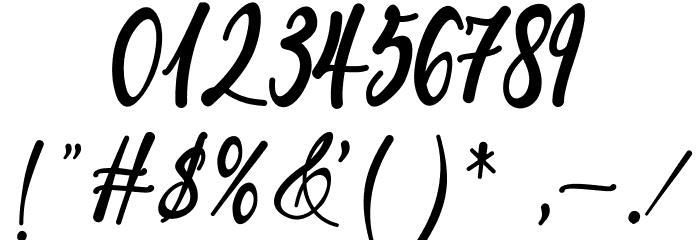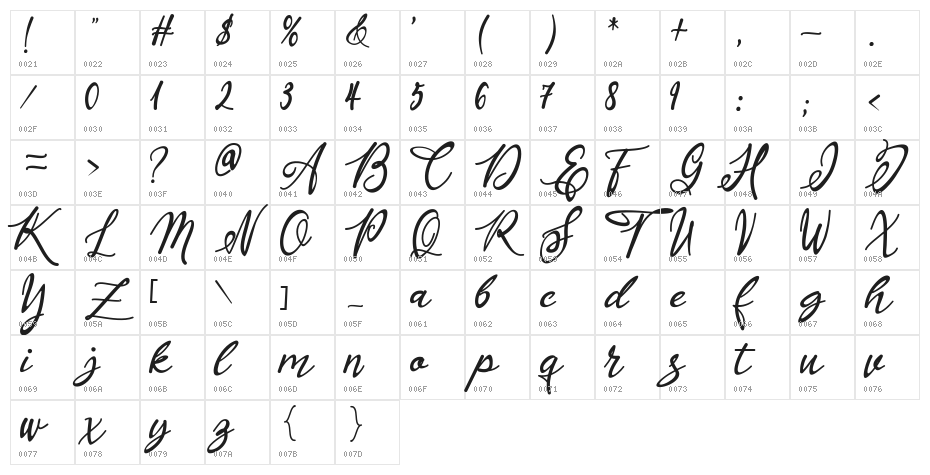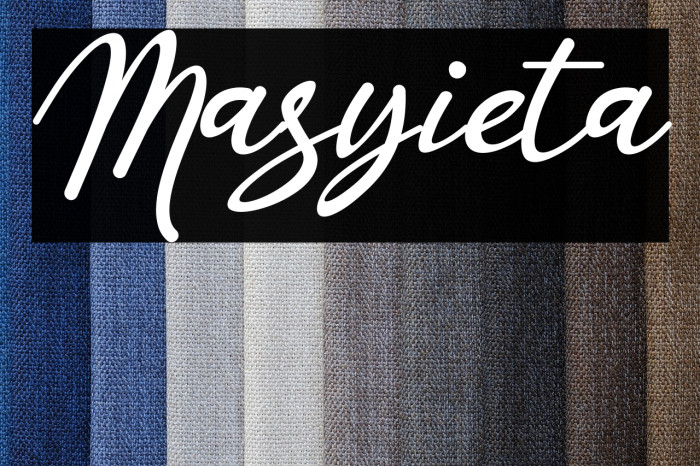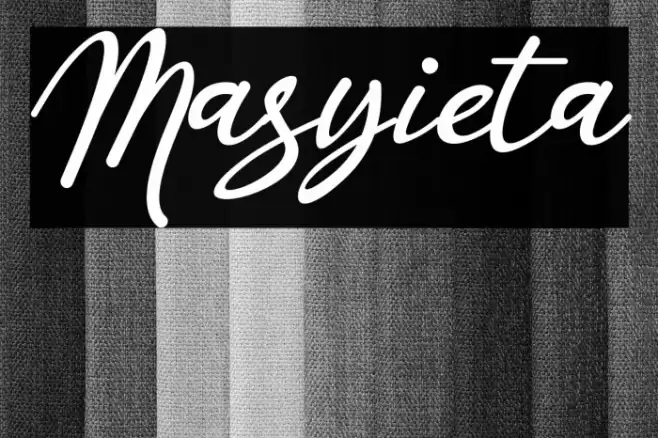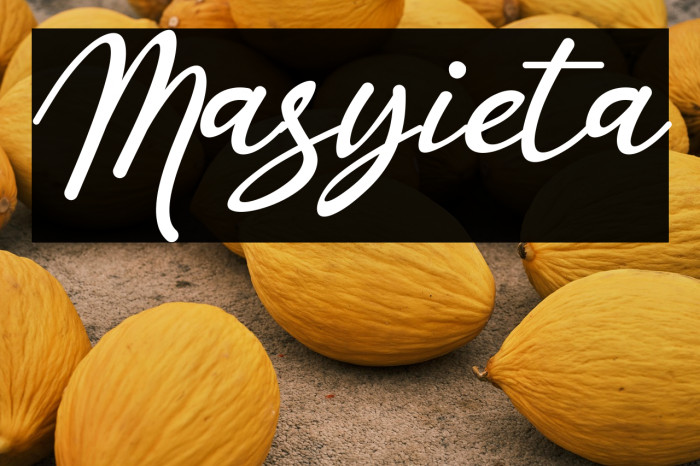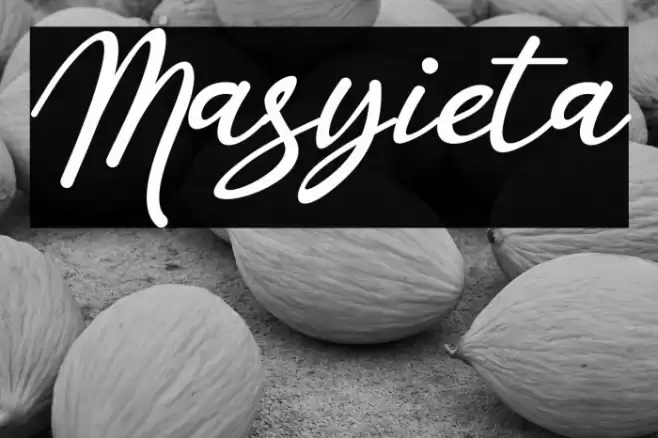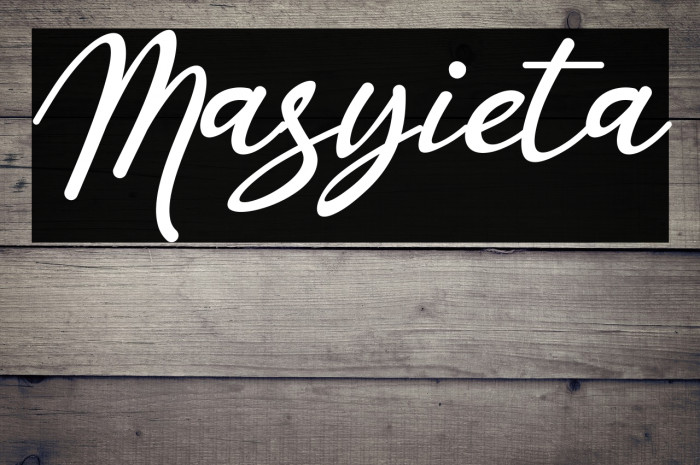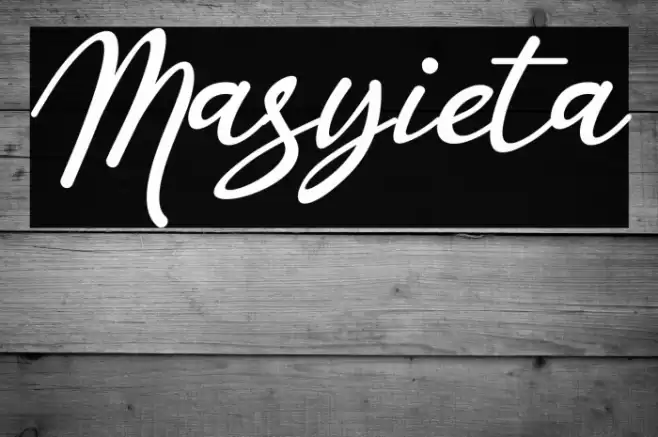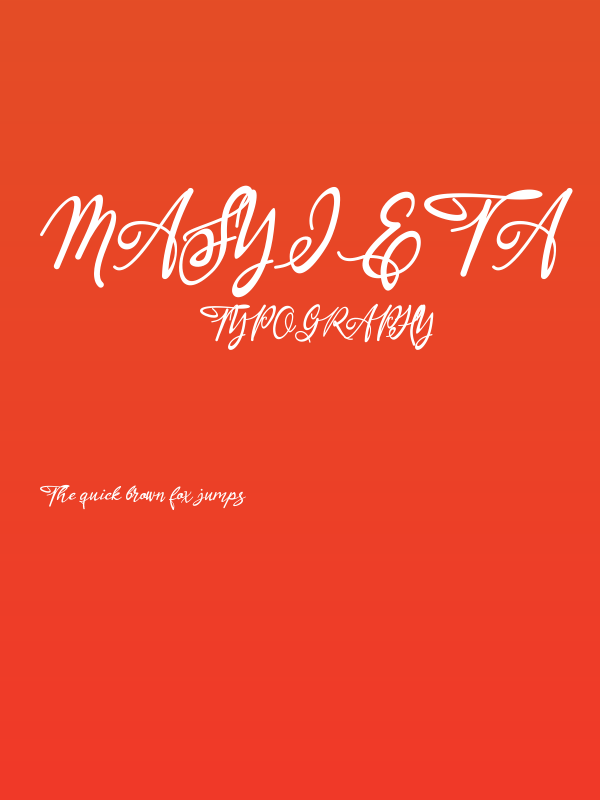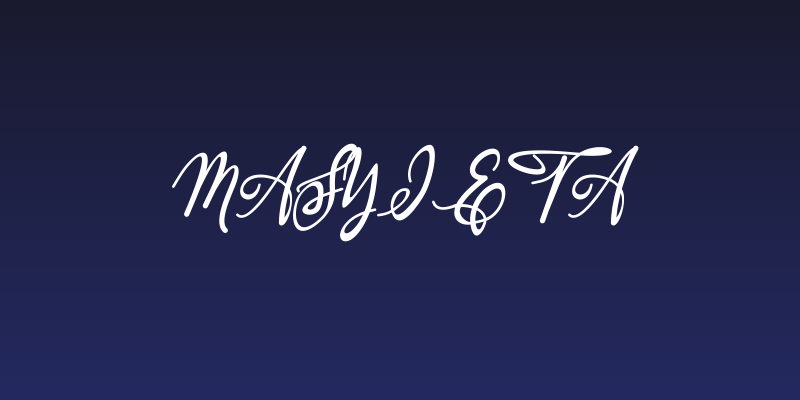
Masyieta Font
Masyieta Description
This font features an elegant and flowing script style, characterized by its smooth, cursive letterforms that convey a sense of sophistication and fluidity. The uppercase letters are ornate, with intricate loops and swashes that add a decorative touch, while the lowercase letters maintain a consistent, connected flow. The numerals are bold and slightly italicized, complementing the overall script aesthetic. Special characters are designed with the same attention to detail, ensuring a cohesive look across all glyphs. This font is ideal for projects that require a personal, handwritten feel, such as invitations, greeting cards, or branding materials.
| Proposed Projects | Ideal for wedding invitations, greeting cards, branding, and personal stationery. |